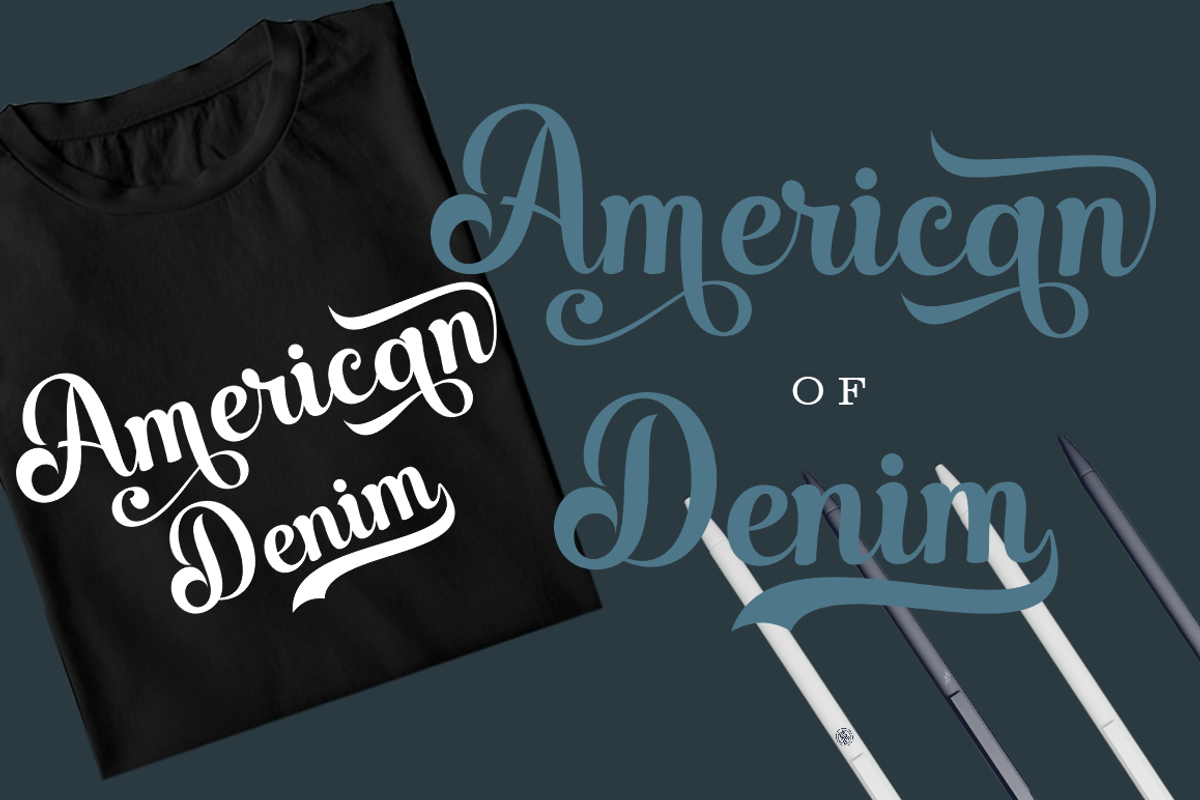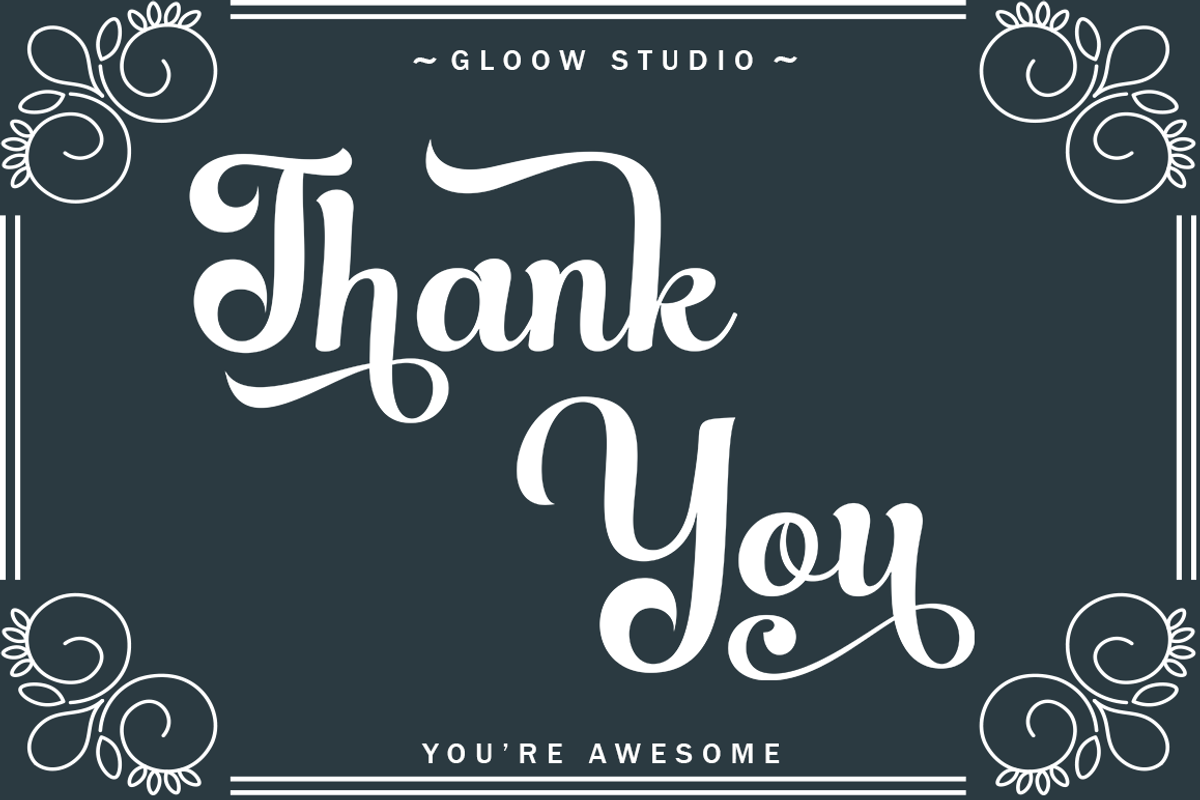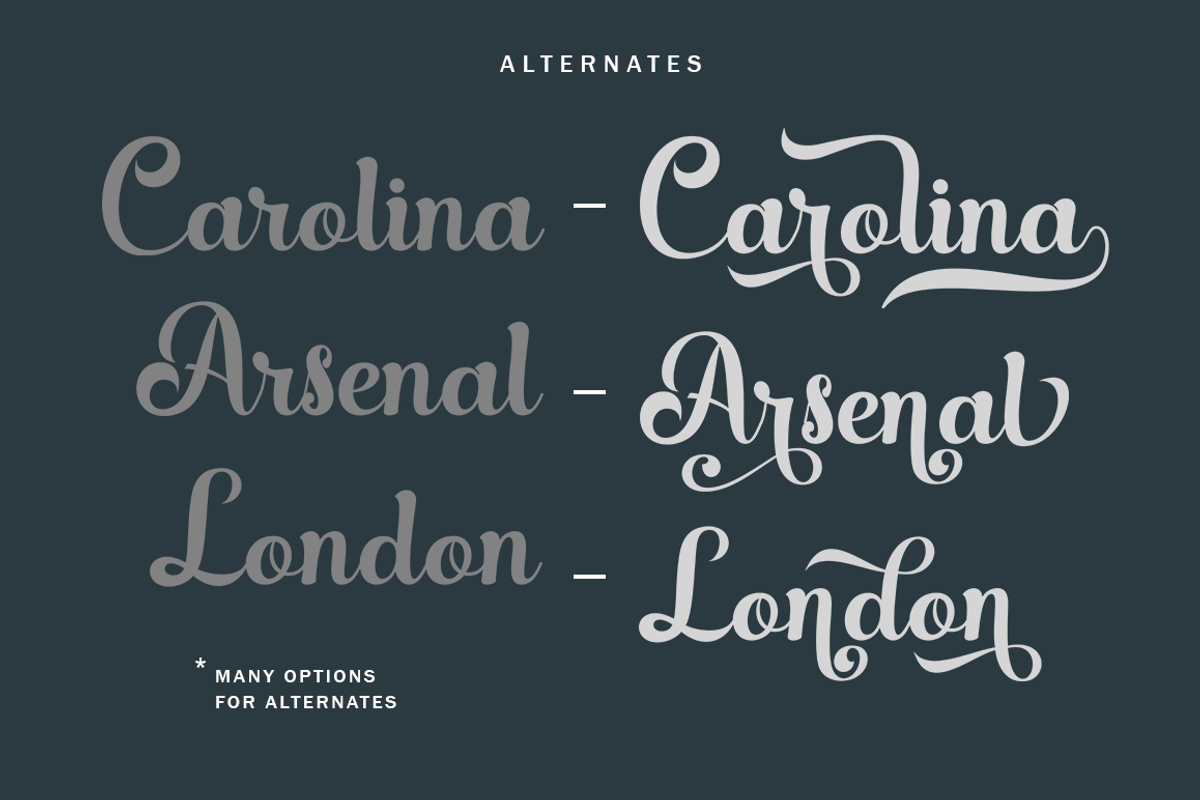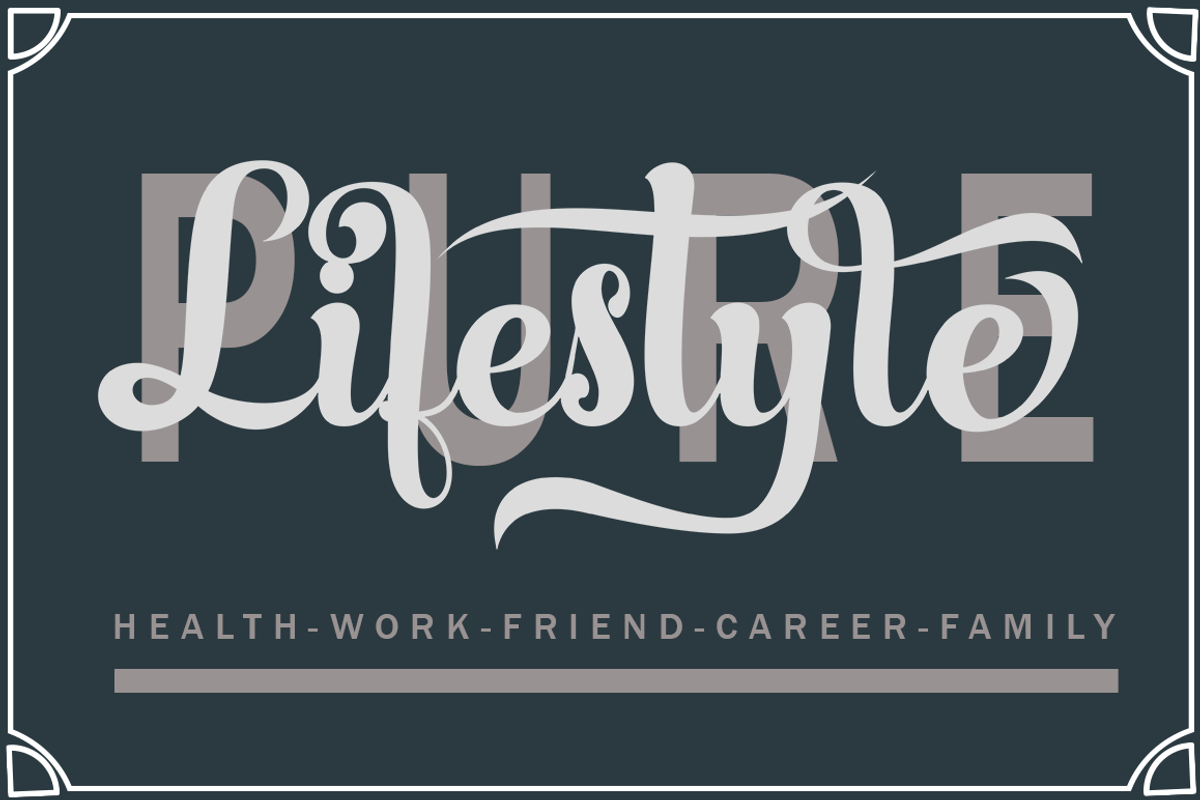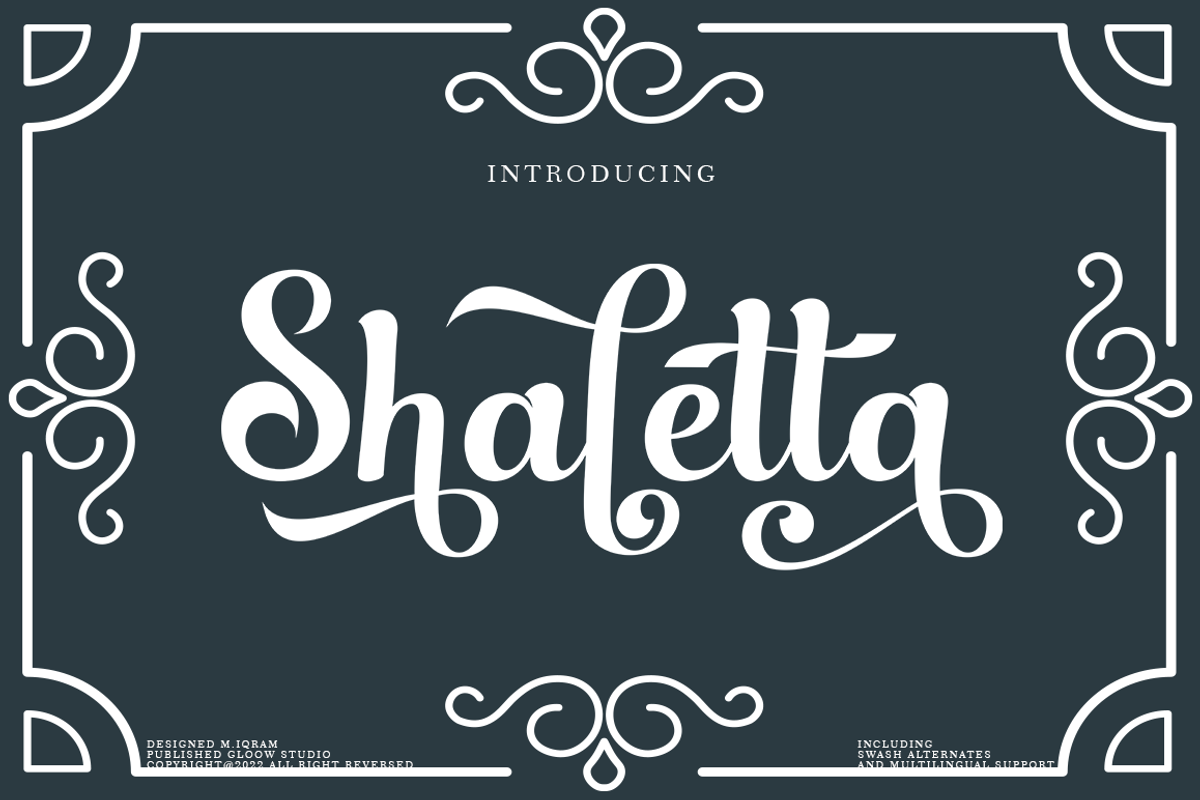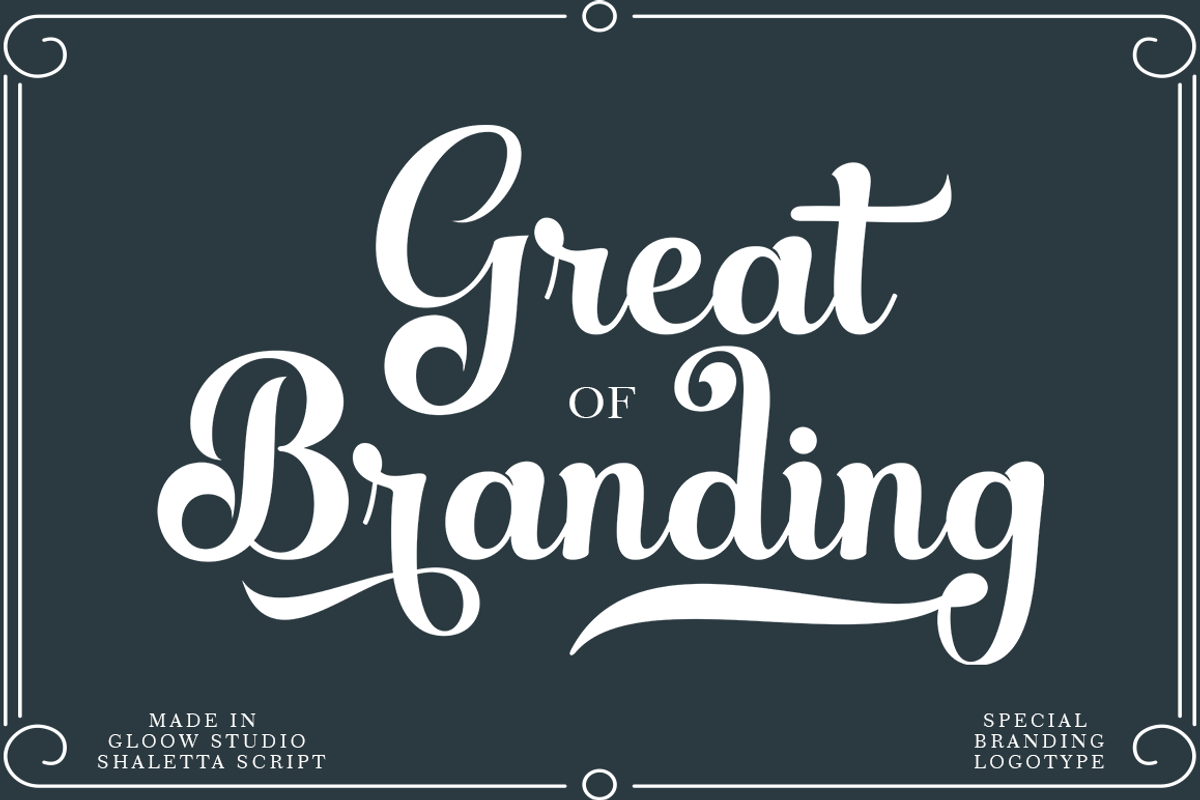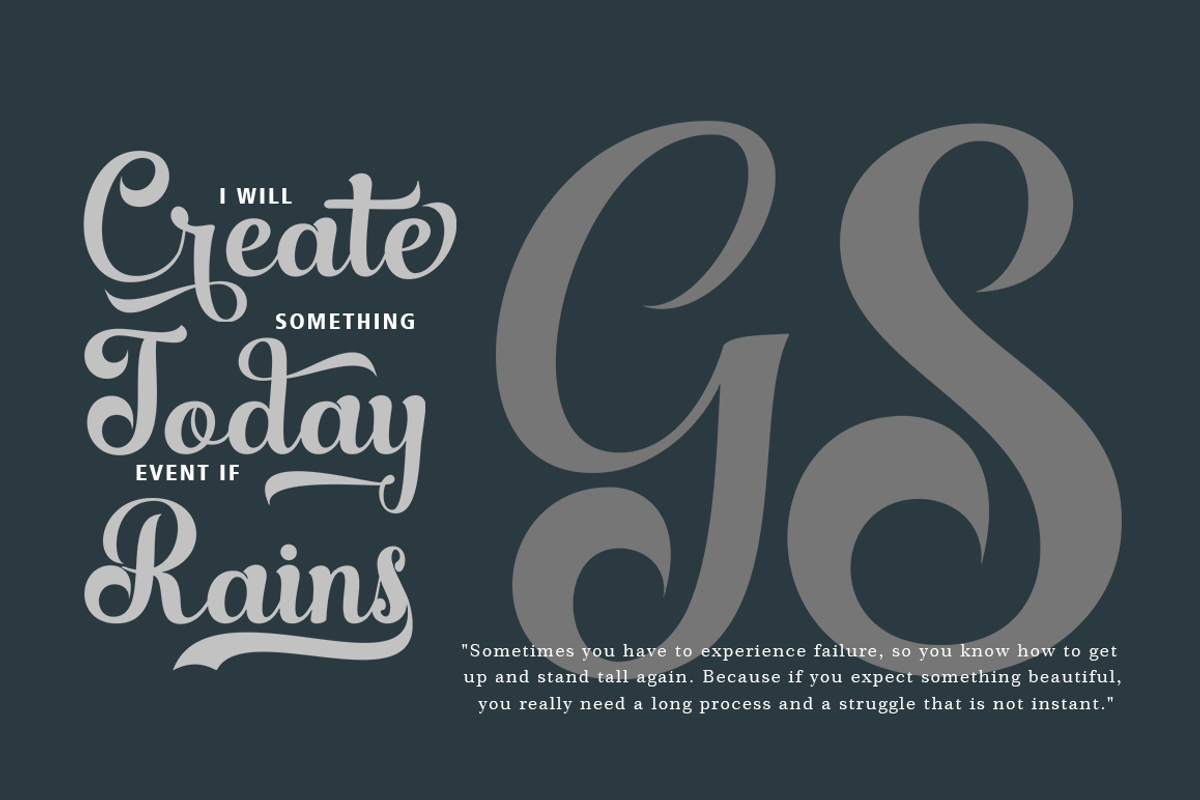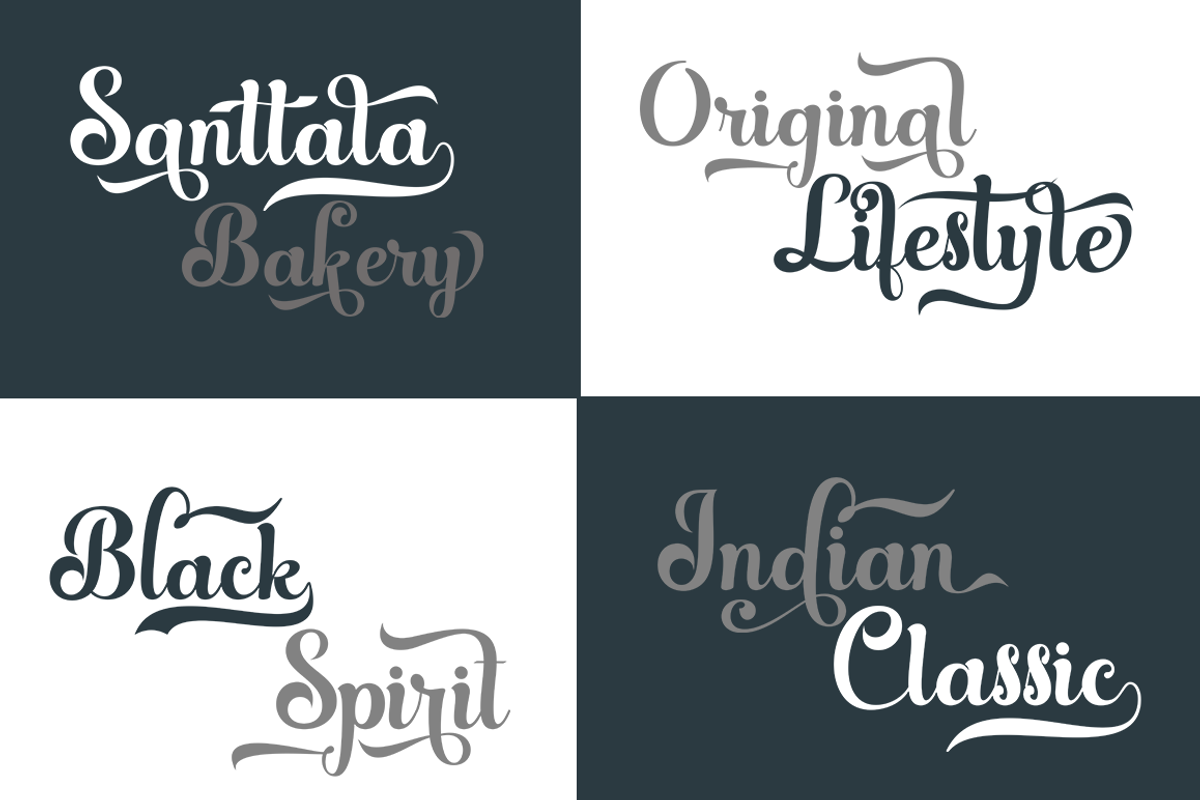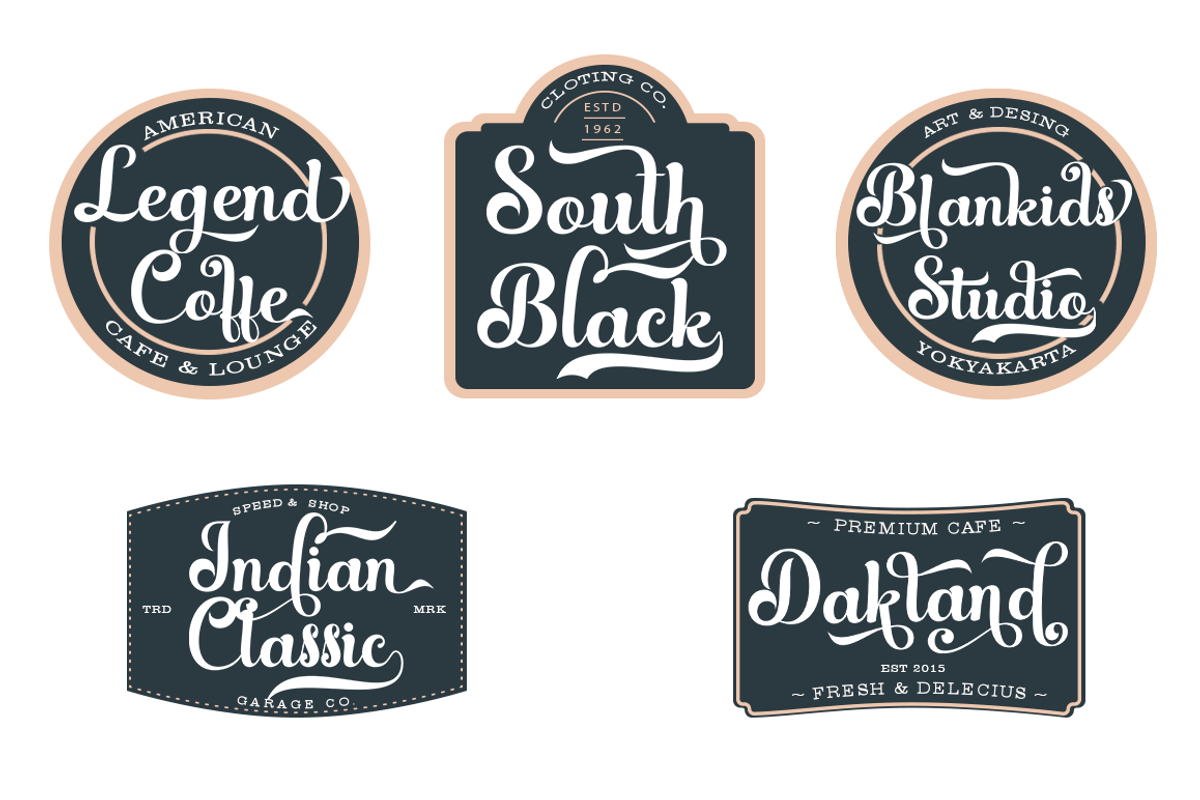
Shaletta Script
We introduce our new product called Shaletta Font. Shaletta Font is a bold script font which has two styles, Clean and Textured. With those kind of styles, Shaletta Font will looks more vintage and classic.
Shaletta Font is great for Logotype, Branding Design, Logo Design, Digital Lettering Arts, T-Shirt/Apparel, Poster, Magazine, Signs, Advertising Design, and any vintage design needs.
Shaletta includes capital and lowercase letters, Alternates, and Ligatures
Numbers + punctuation
Foreign language support